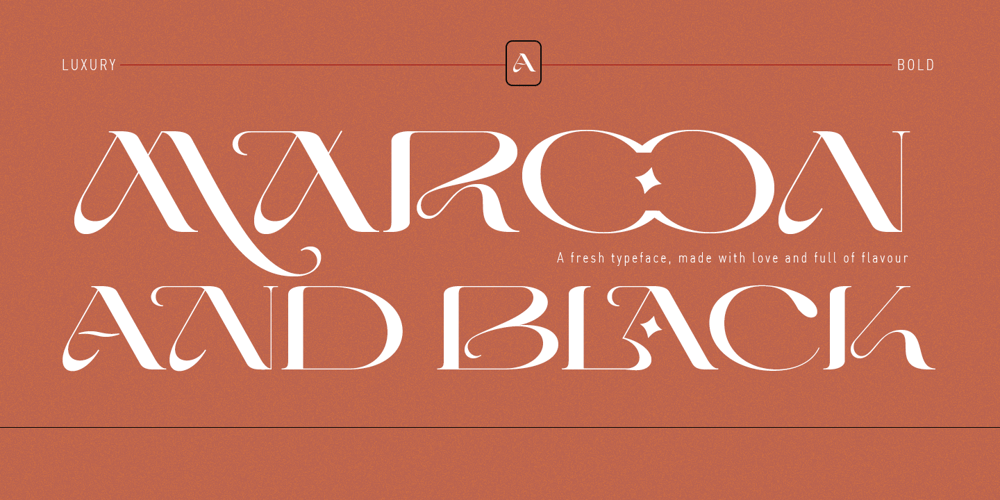
Maroon And Black Font Family was designed by Ambia and published by Areatype. Maroon And Black contains 2 styles and family package options. Maroon And Black a display sans serif is a very versatile font, clean, and visual elegance. Also available Maroon And Black Outline to help you mix and match it to fit your creative work in harmony. perfect for magazine images, to wedding invitations, to branding, poster design, and more.Files included: Numerals & Punctuation Stylistic Alternates & Ligatures PUA Encoded Characters Thanks so much for looking, I really hope you enjoy it and please don’t hesitate to drop me a message if you have any issues or queries ๐